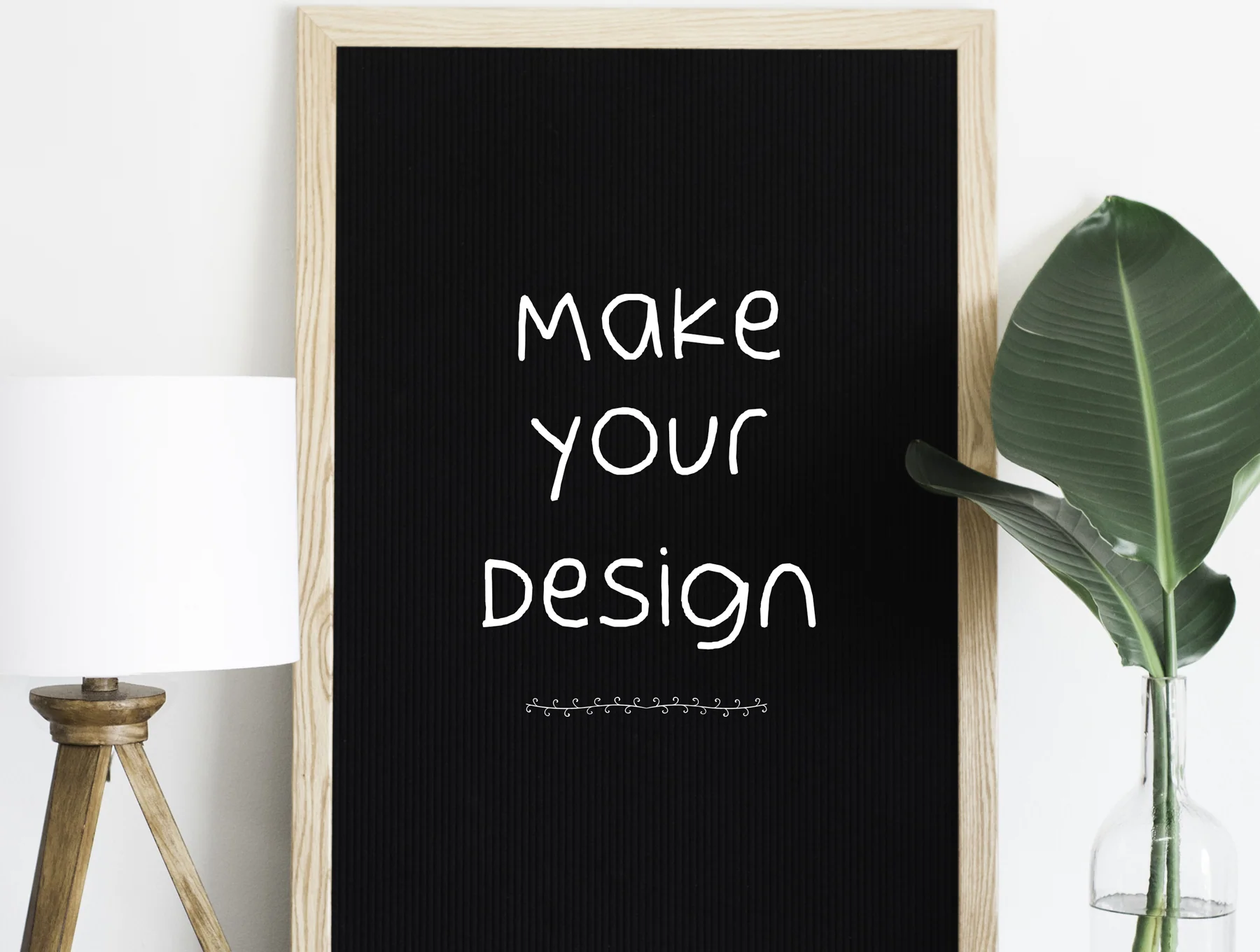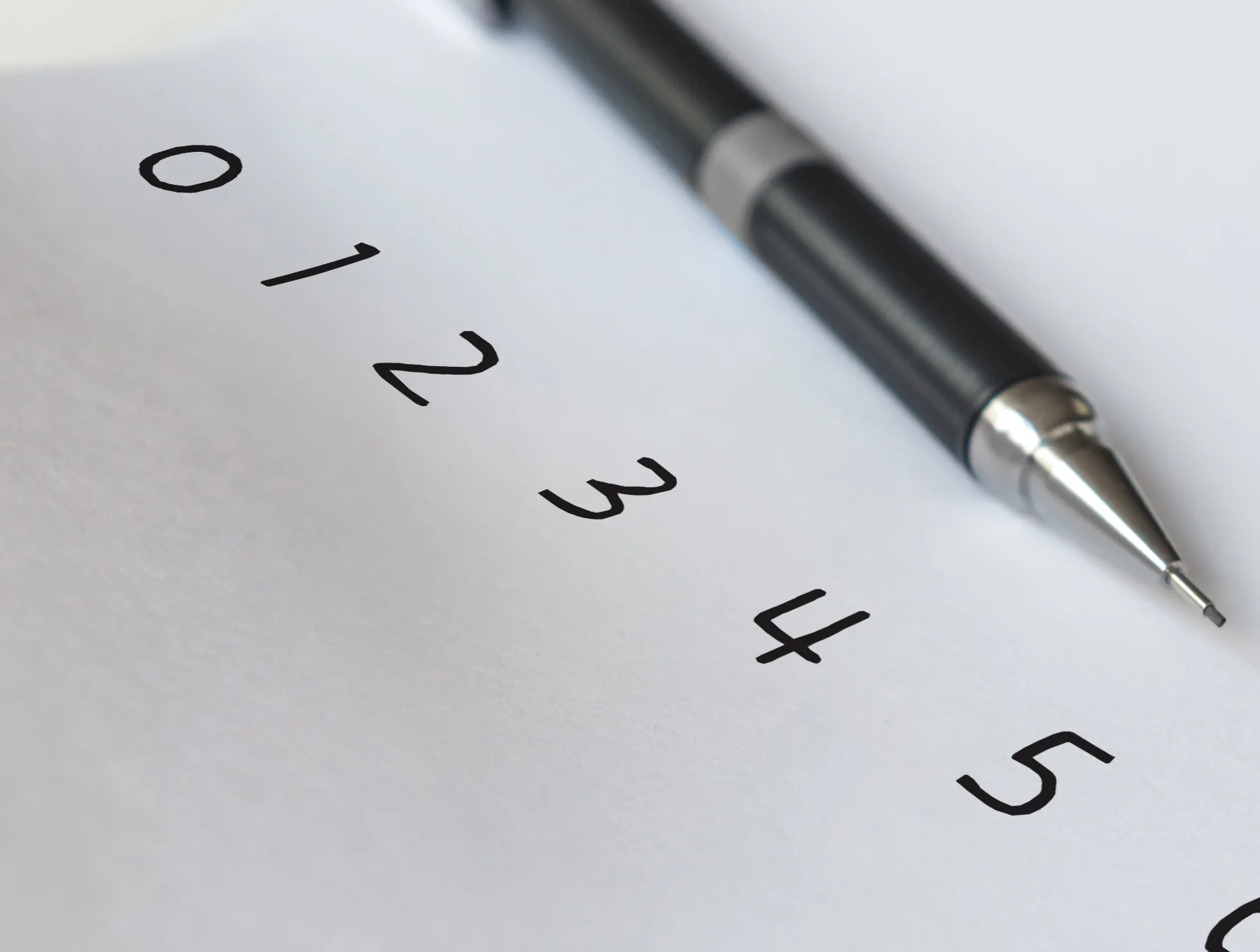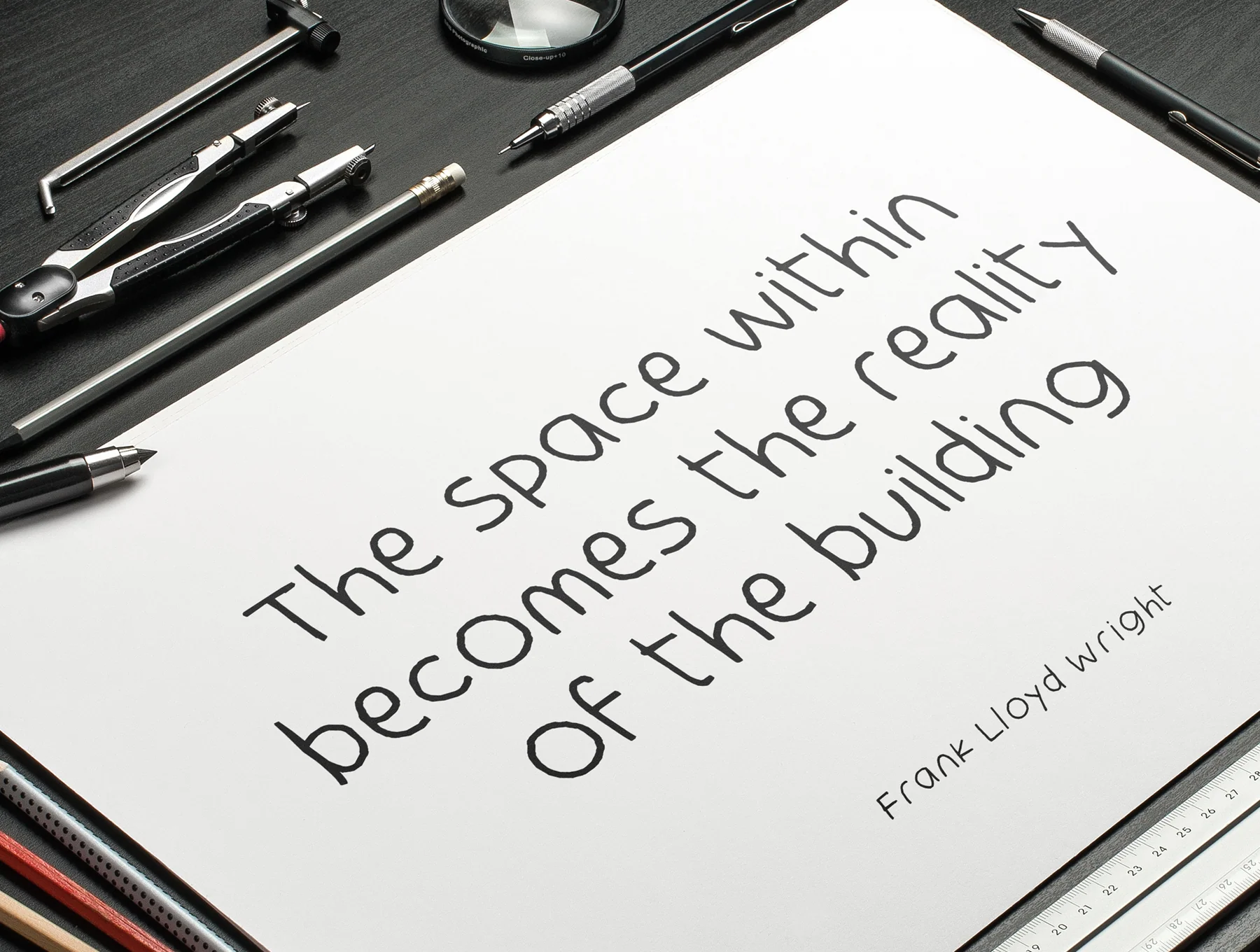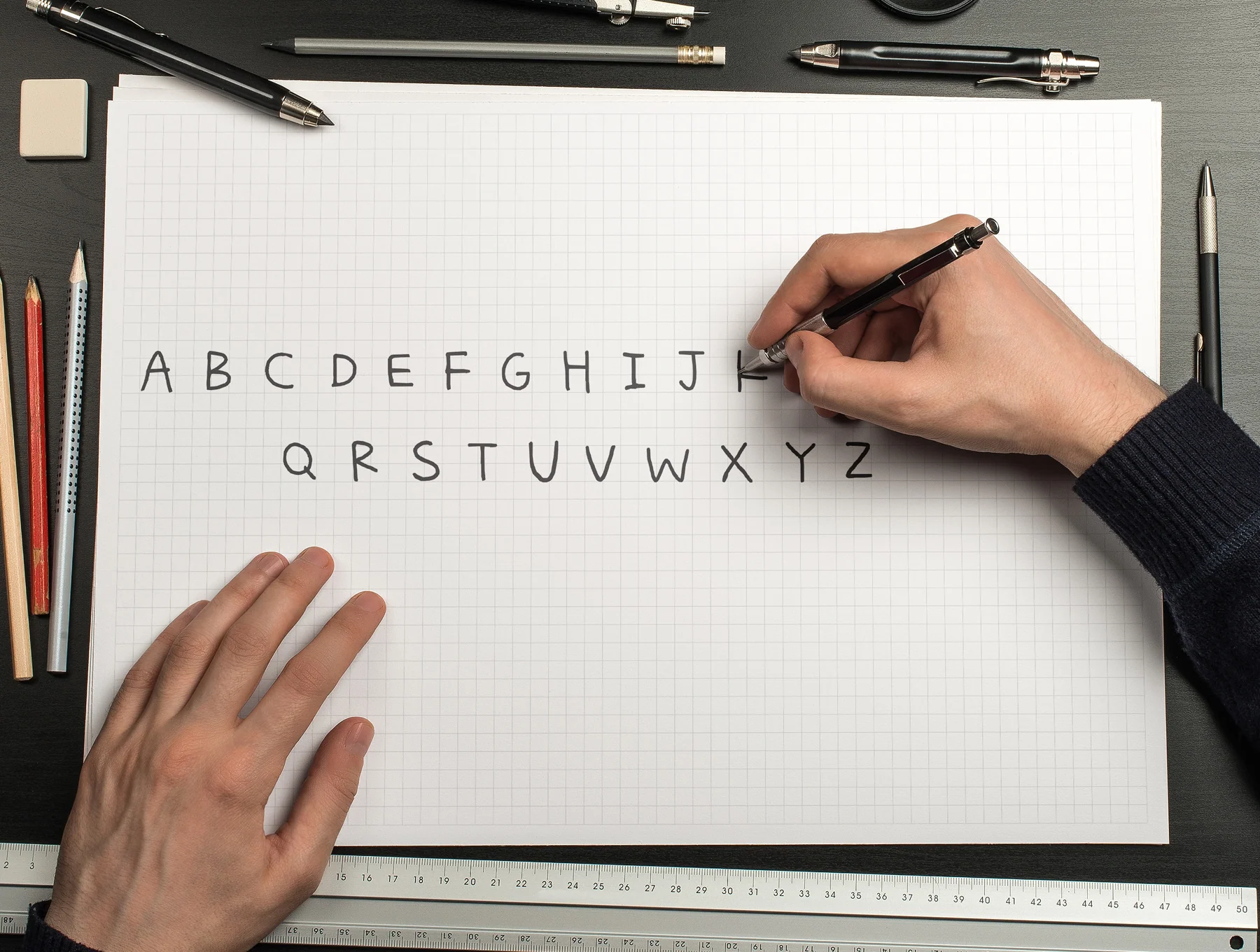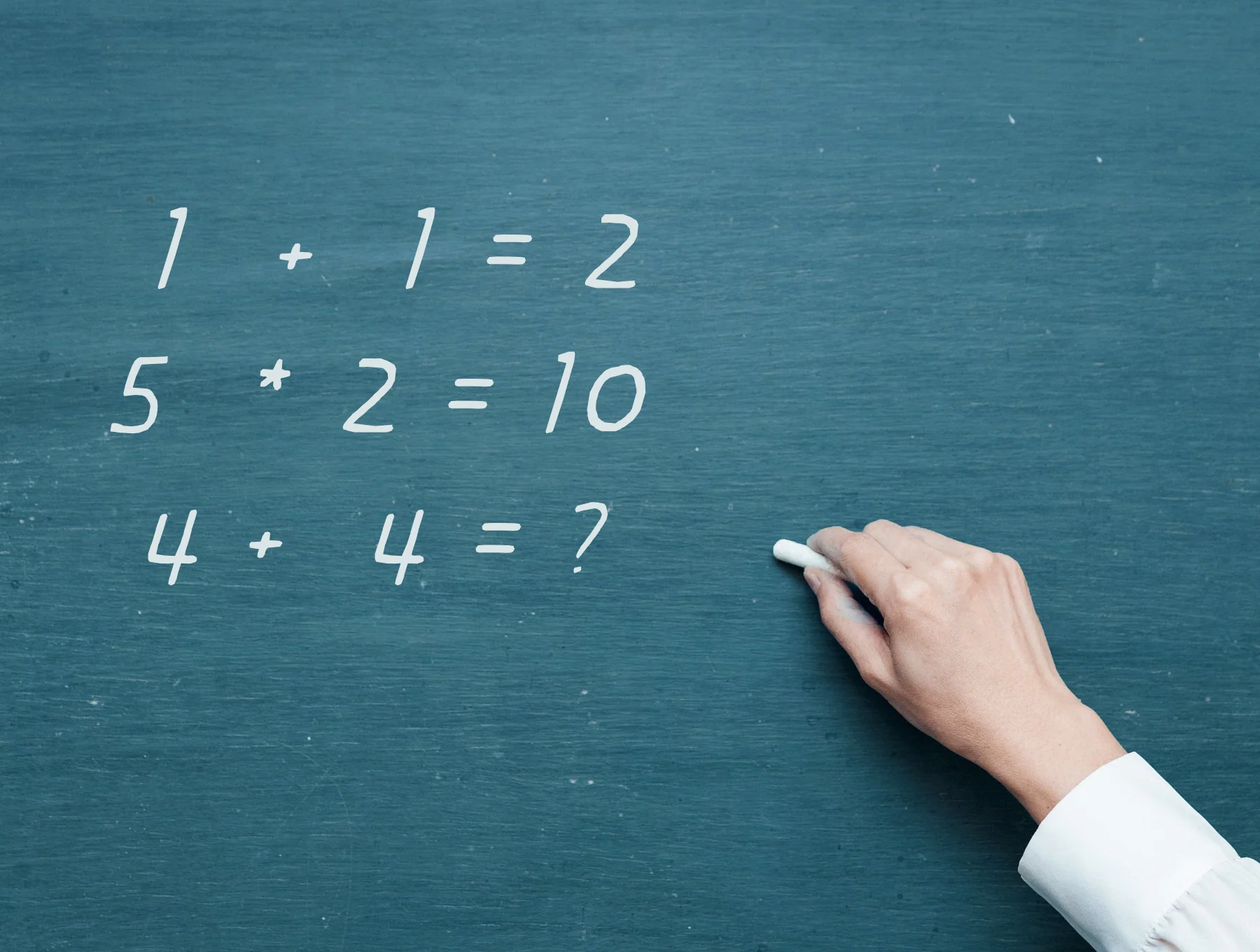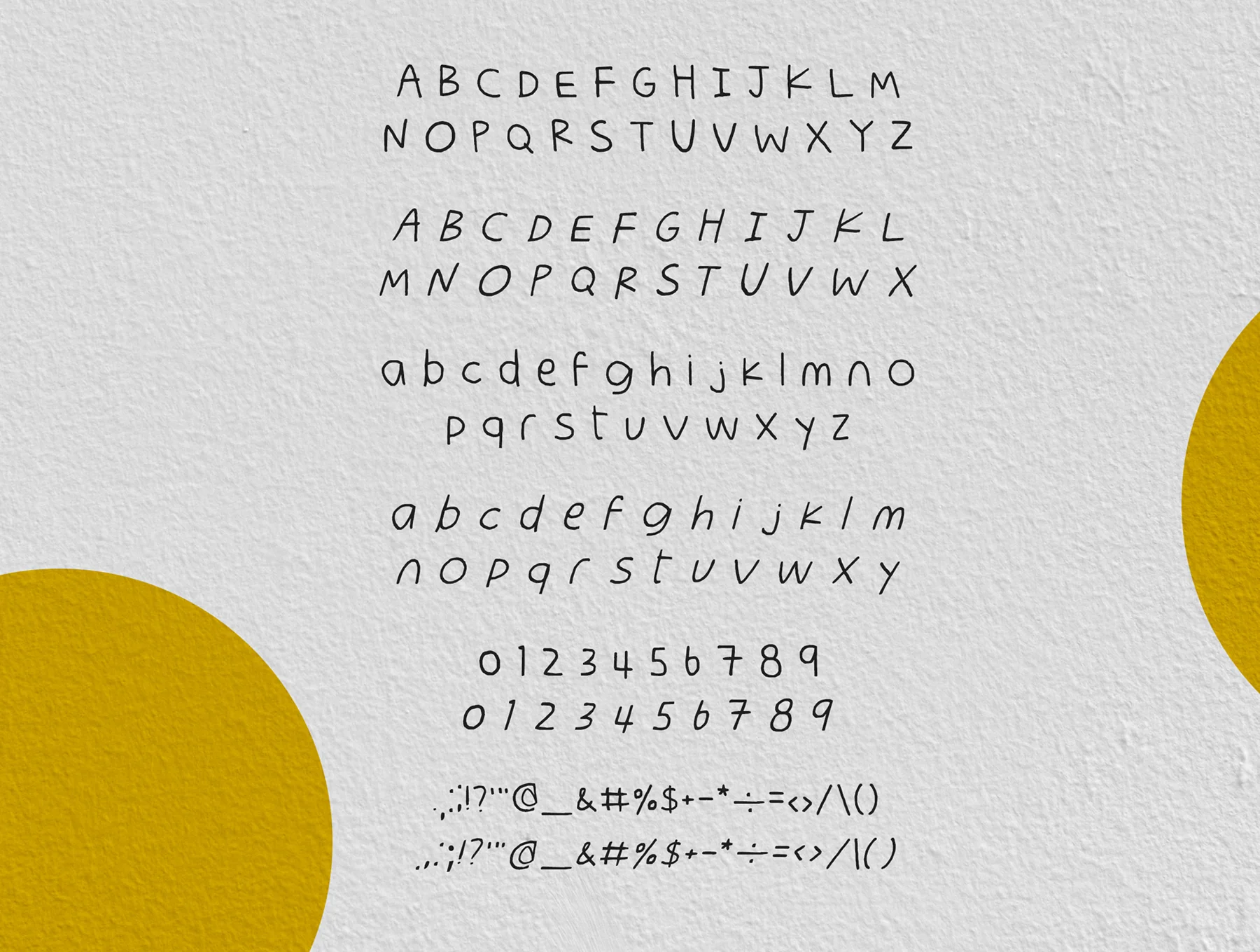
Agenzada Hand-Drawn Font
Handcrafted typeface for professional projects :)
Agenzada Hand-Drawn Font
Sketch-style lettering
Regular and italic styles
Crafted by hand
Penmanship-inspired
Agenzada is a charming hand-drawn typeface with a playful, warm, and flexible style. It includes regular and italic weights, plus complete letters, numbers, and punctuation for creative use.